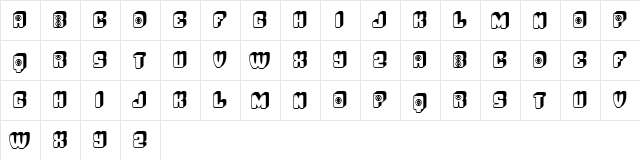
Observation Hollow 3D Regular
Design Context for Observation Hollow 3D Typeface
Observation Hollow 3D is a composed and adaptable typeface that performs quietly and consistently across a wide range of design contexts.